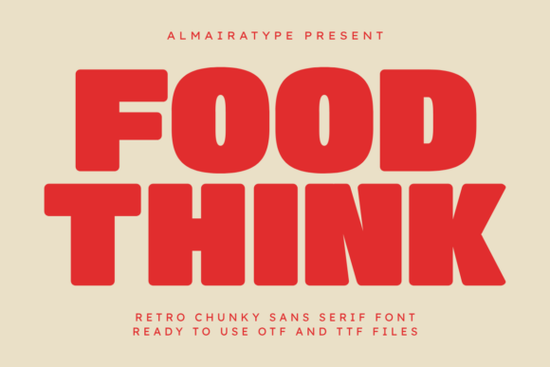
Food Think Font is a standout choice for anyone looking to add a retro, bold vibe to their design work. This chunky sans serif font brings a playful warmth that feels both nostalgic and modern. Whether you're working on food branding, apparel, or packaging, Food Think offers a unique blend of vintage charm and contemporary appeal. Its clean lines and friendly shapes make it easy to read while still making a strong visual statement.
Designed with versatility in mind, Food Think works well across a range of projects. It’s especially popular among graphic designers, small business owners, and crafters who want to create eye-catching designs without sacrificing clarity. The font’s robust weight and rounded edges give it a welcoming feel, making it ideal for everything from social media posts to printed materials.
Why Food Think is Perfect for Your Projects
Food Think is more than just a font it’s a tool that helps you express your creative vision. Its bold, chunky style is perfect for headlines, logos, and other attention-grabbing elements. At the same time, its readability ensures that your message comes through clearly, even at smaller sizes.
For businesses in the food industry, this font can help establish a strong brand identity. It adds a sense of fun and approachability that can resonate with customers. For clothing brands and independent designers, it provides a fresh, modern look that stands out in a crowded market.
How to Use Food Think Effectively
When using Food Think, consider the context of your project. It works best for large text elements like headlines, titles, and logos. Avoid using it for long blocks of body text, as its boldness may reduce readability in extended formats.
Pair it with simpler fonts for balance. For example, use a clean sans serif for body copy and let Food Think shine in headings or key visuals. This contrast can help guide the viewer’s eye and create a more dynamic layout.
Experiment with different colors and backgrounds to see how Food Think interacts with your overall design. Its friendly curves and strong presence make it adaptable to a wide range of styles and themes.
Whether you're a designer, a small business owner, or a hobbyist, Food Think Font is a valuable addition to your collection. Its combination of style, readability, and technical compatibility makes it a practical and appealing choice for a wide range of creative applications.
Take some time to test it out in your next project and see how it enhances your design work. With its unique character and versatile use, Food Think is sure to become a go-to font for many of your creative needs.